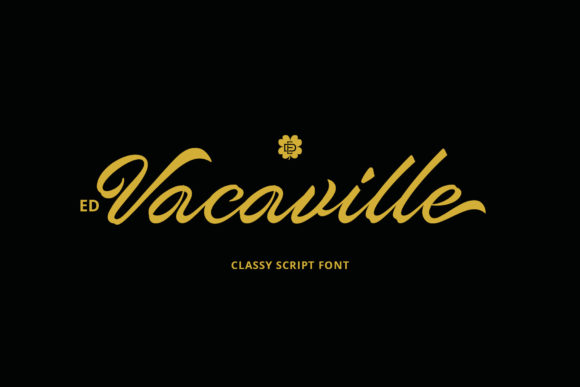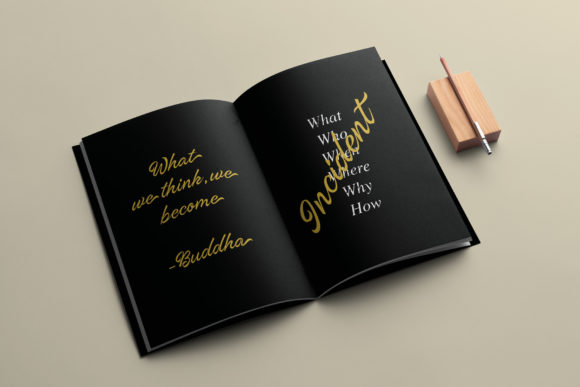
About Vacaville Script Font
Vacaville Script is an equally distinct and bold handwritten font that’s great for delivering any message with confidence, authenticity and charm. It will elevate a wide range of crafting ideas, from cards, to branding, labels and much more.